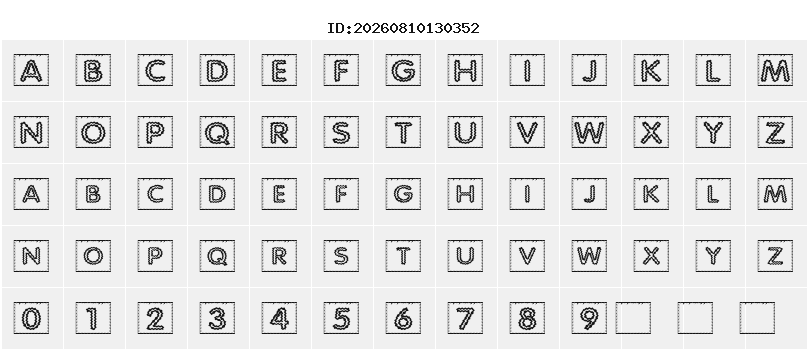
Quilted Indian Preview
• Font Name: Quilted Indian
• Full Font Name: Quilted Indian
About Quilted Indian.ttf
Quilted Indian.ttf is a modern, elegant sans-serif font designed for ultimate readability and visual harmony. Perfect for branding, headlines, web design, and print materials.